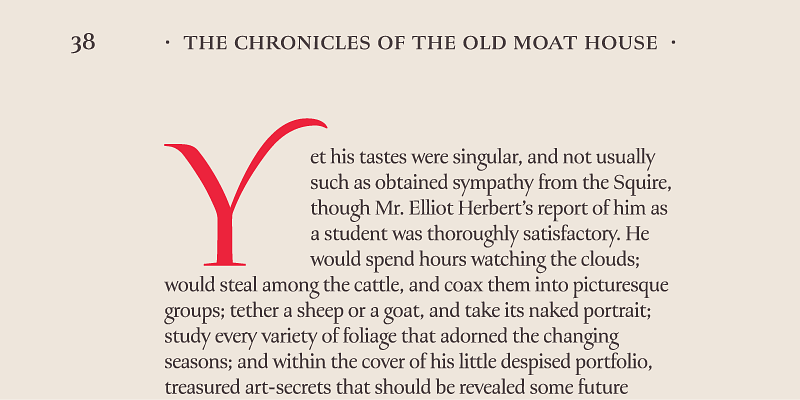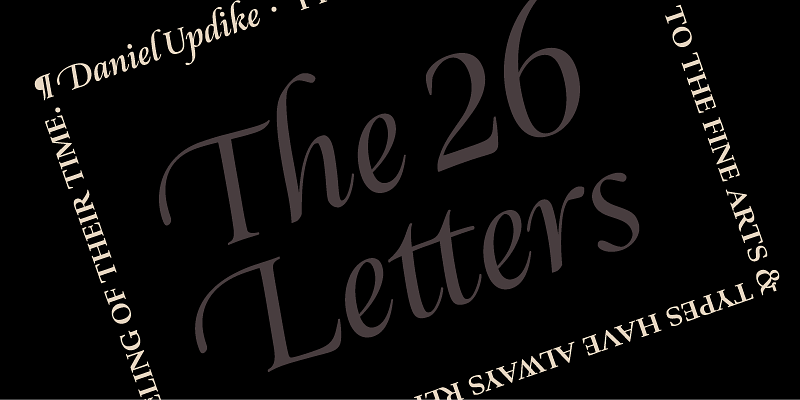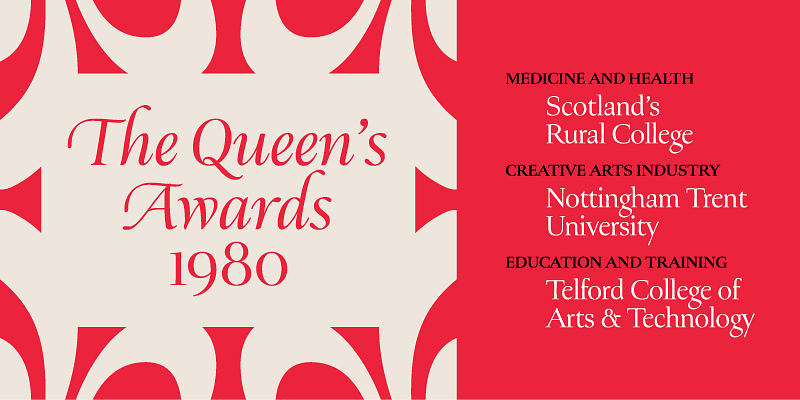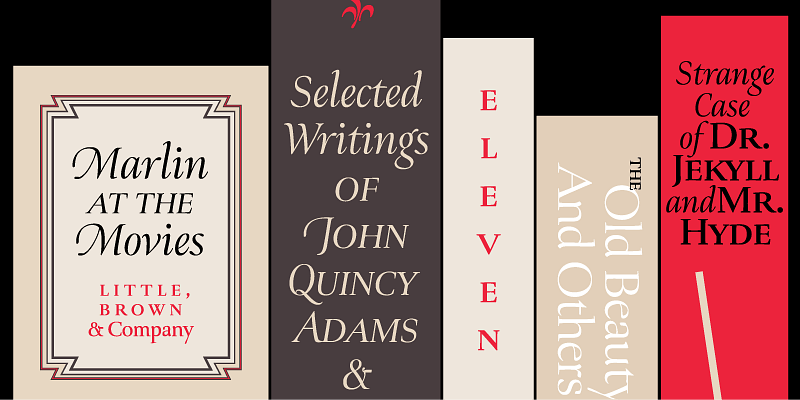
Ellery is an elegant display typeface inspired by Oscar Ogg’s calligraphed book jackets from the ’40s for Atlantic/Little-Brown & Company. This delicate and warm family has a suggested size range of 14pt and higher. The flowing Italic pairs well with the Roman yet is also truly expressive on its own in large display settings. Richard Lipton’s Ellery is ideal for any typography needing distinction and grace. Available in Regular, Medium, Bold, and Extra Bold, with Italics, or as Variable Fonts.